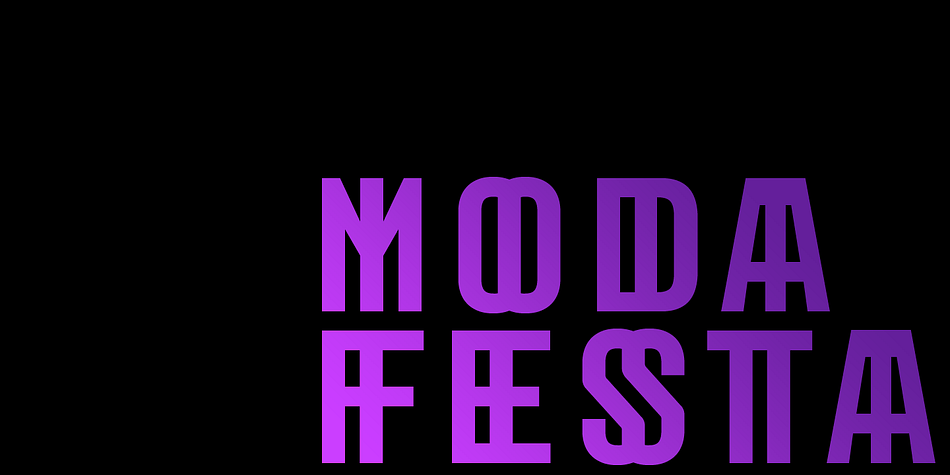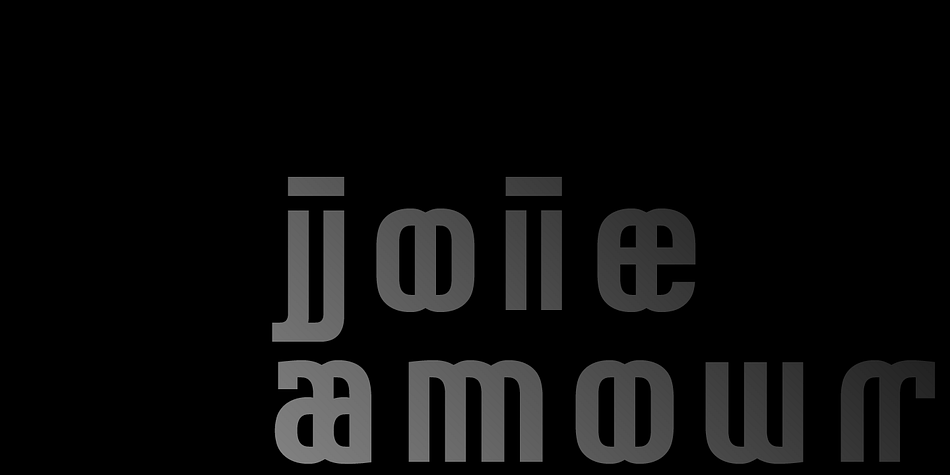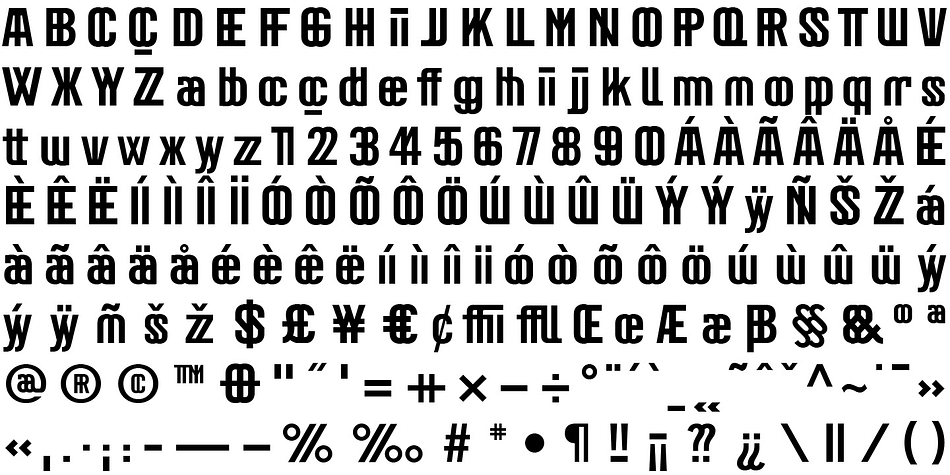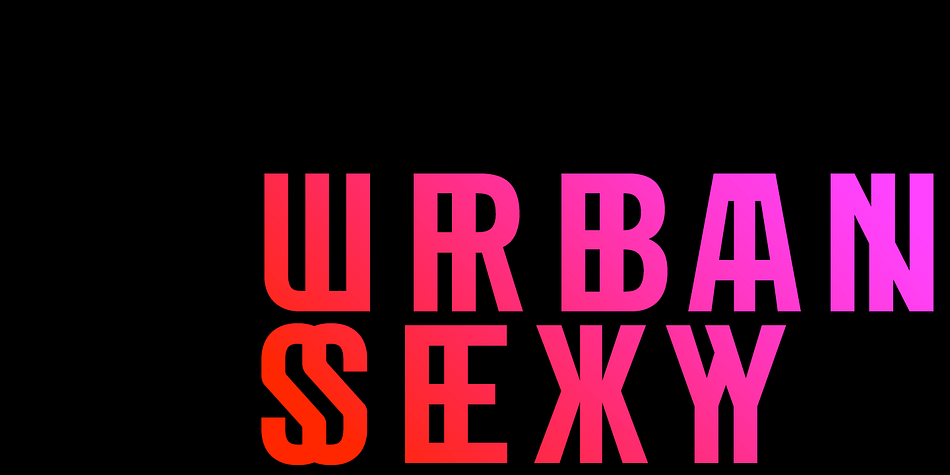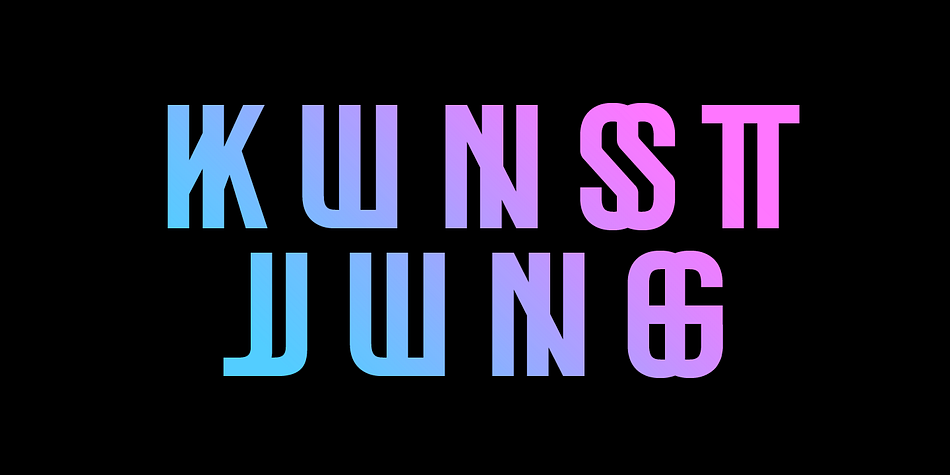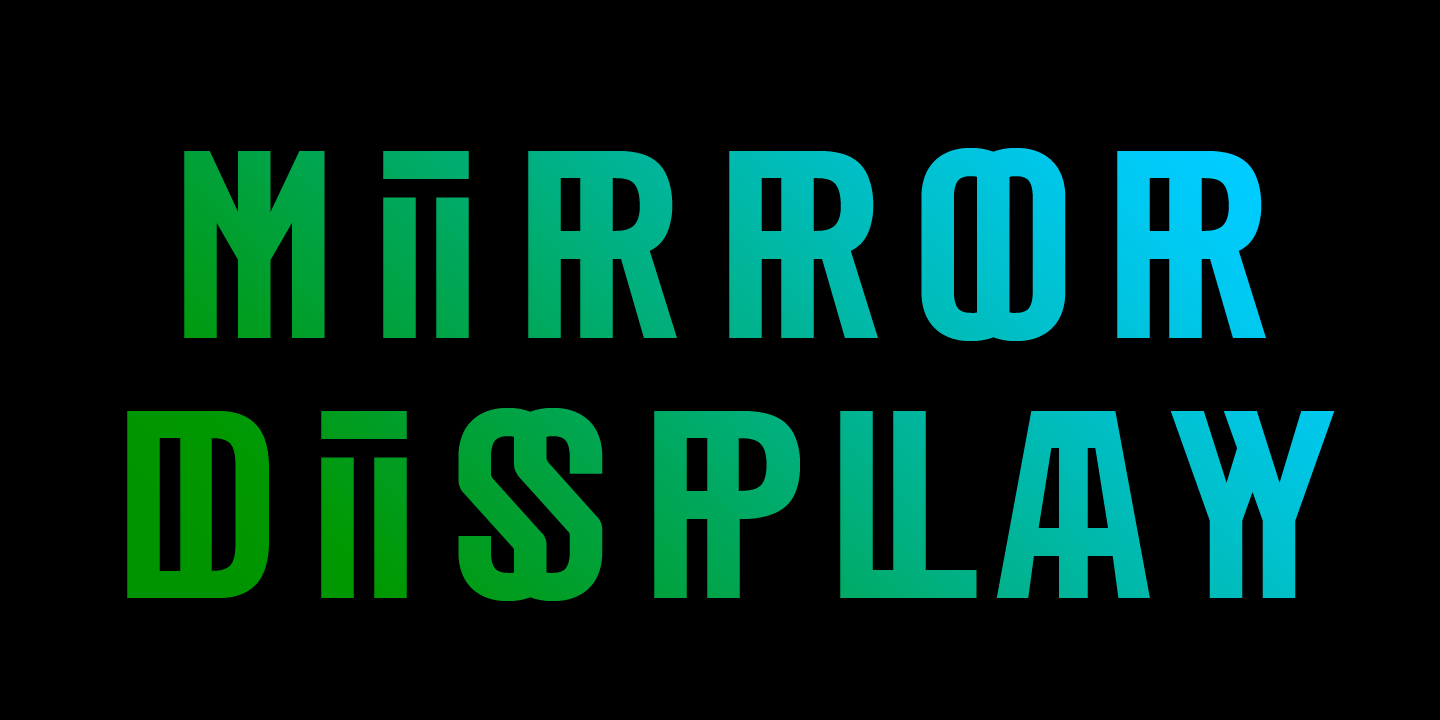
Mirror Display
Designed by Pedro Mascarenhas, Mirror Display is a display sans font published by MOM.
Mirror Display is based on the condensed sans. Developed to ‘double view’ to give readers the same feeling they have when looking to a work of art they don’t understand at first glance.